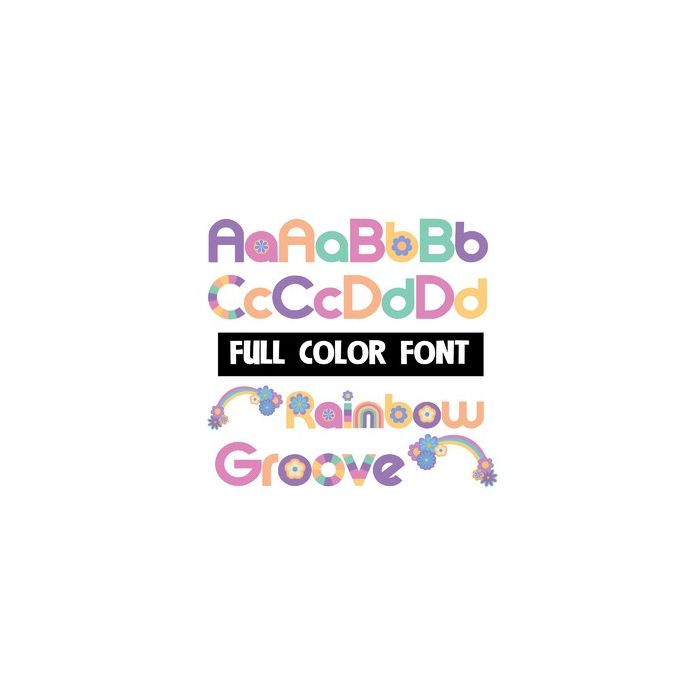
This full-color font features a spring color palette, retro lettering and flowers and an alt case w/ additional colors you can access through your system or Silhouette's glyph map.